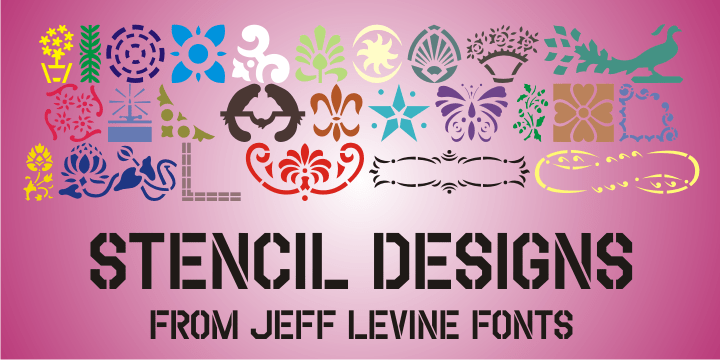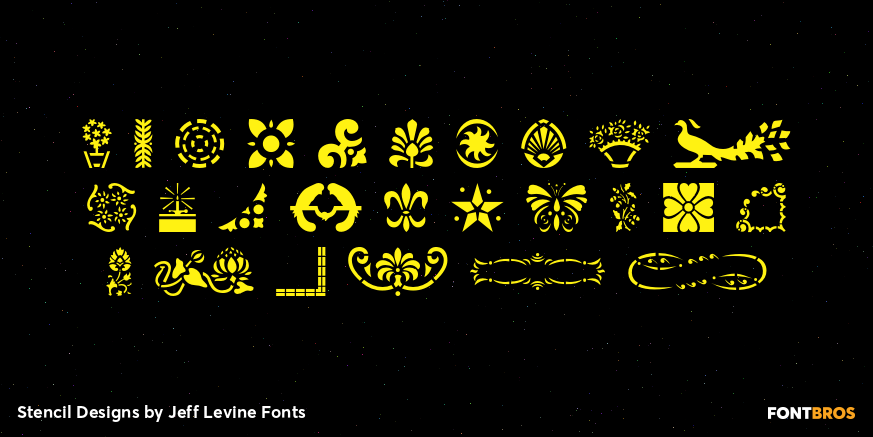
Stencil Designs
Stencil Designs JNL collects twenty-six decorative designs from various vintage sources for use as spot embellishments, borders and corner pieces.